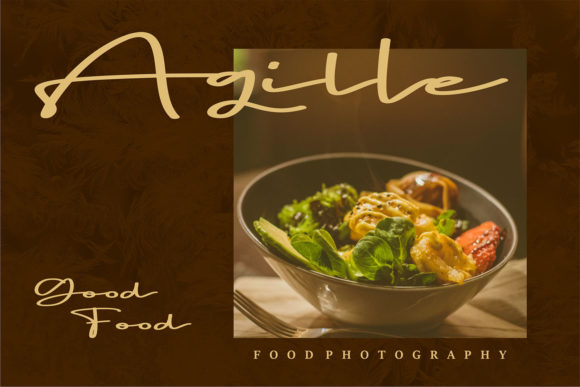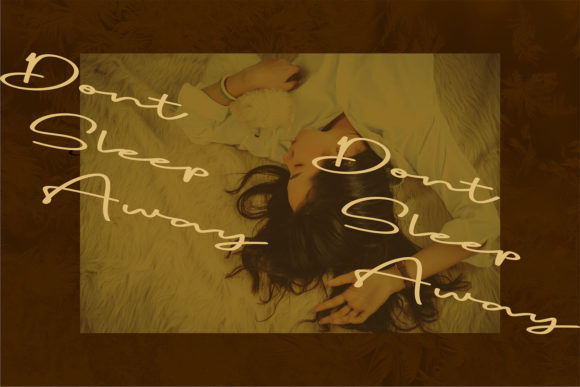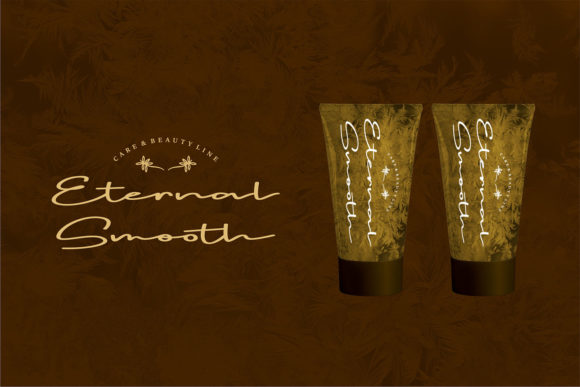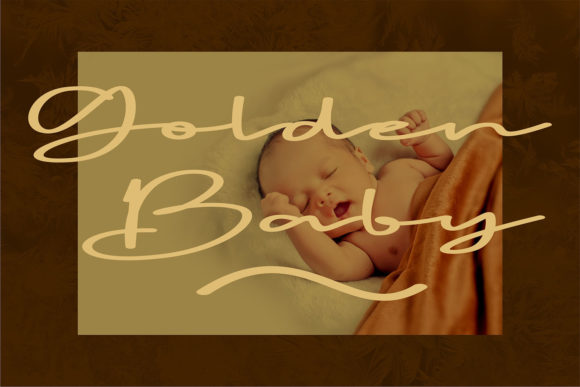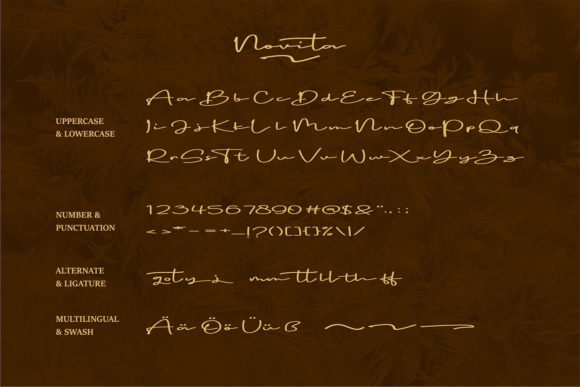
Novita Font
About Novita Font
Novita is a round lettered, natural and relaxed handwritten font. Fall in love with its incredibly versatile style and use it to create spectacular designs!